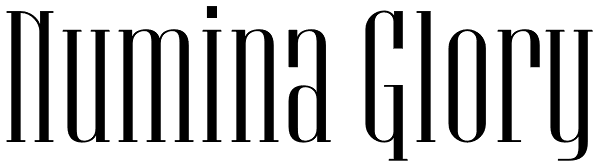
Numina
Numina is an elegant, dignified, highly condensed modern display family comprising two complementary faces. Numina Glory capitalizes on the family’s strong, relentless vertical texture, eschewing diagonals in favor of robust pillars, whereas Numina...
Numina Glamour
Numina Glamour Ligatures
Numina Glory
Numina Glamour Ligatures Oblique
Numina Glory Ligatures
Numina Glamour Oblique
Numina Glory Ligatures Oblique
Numina Glory Oblique